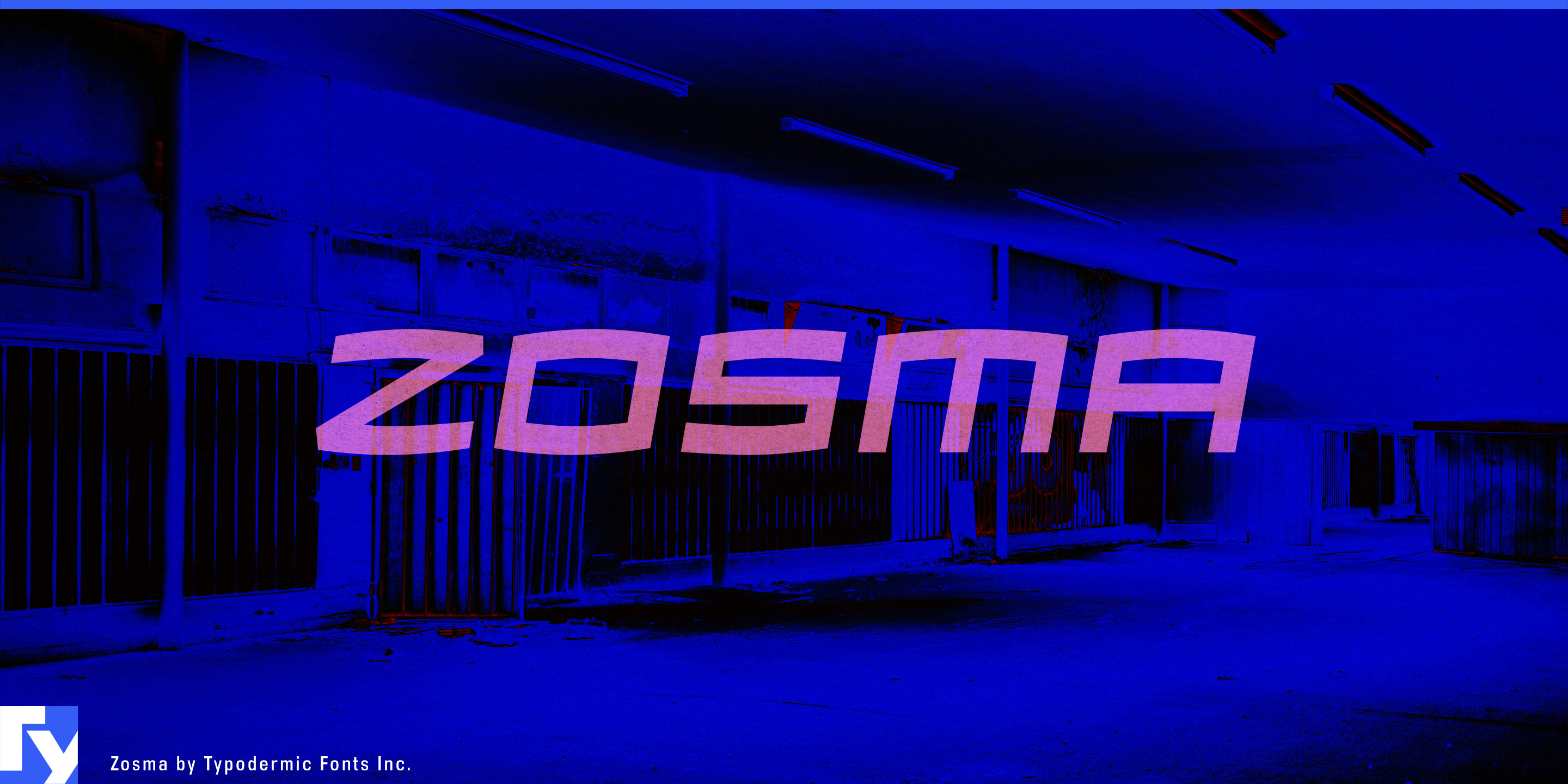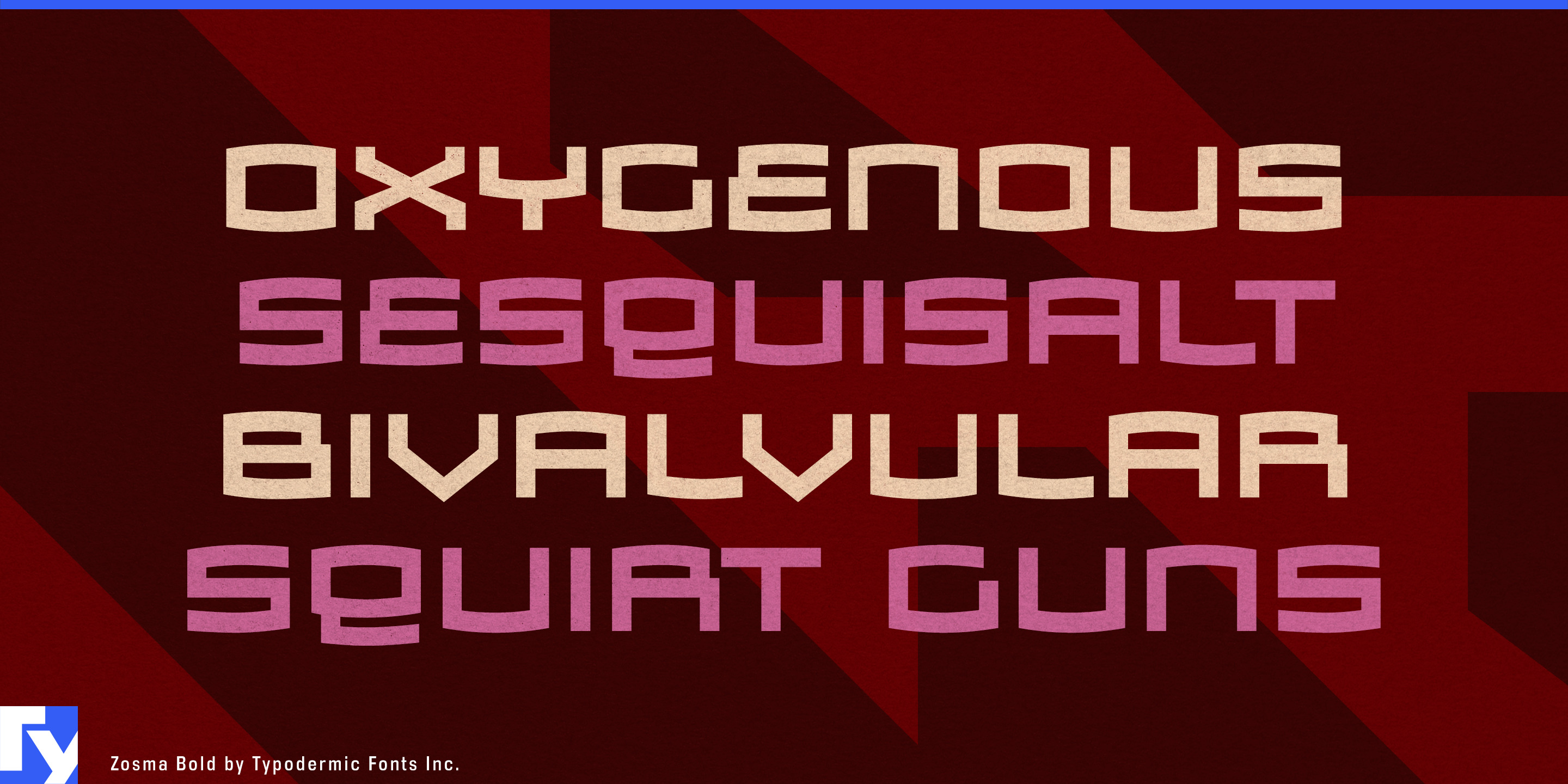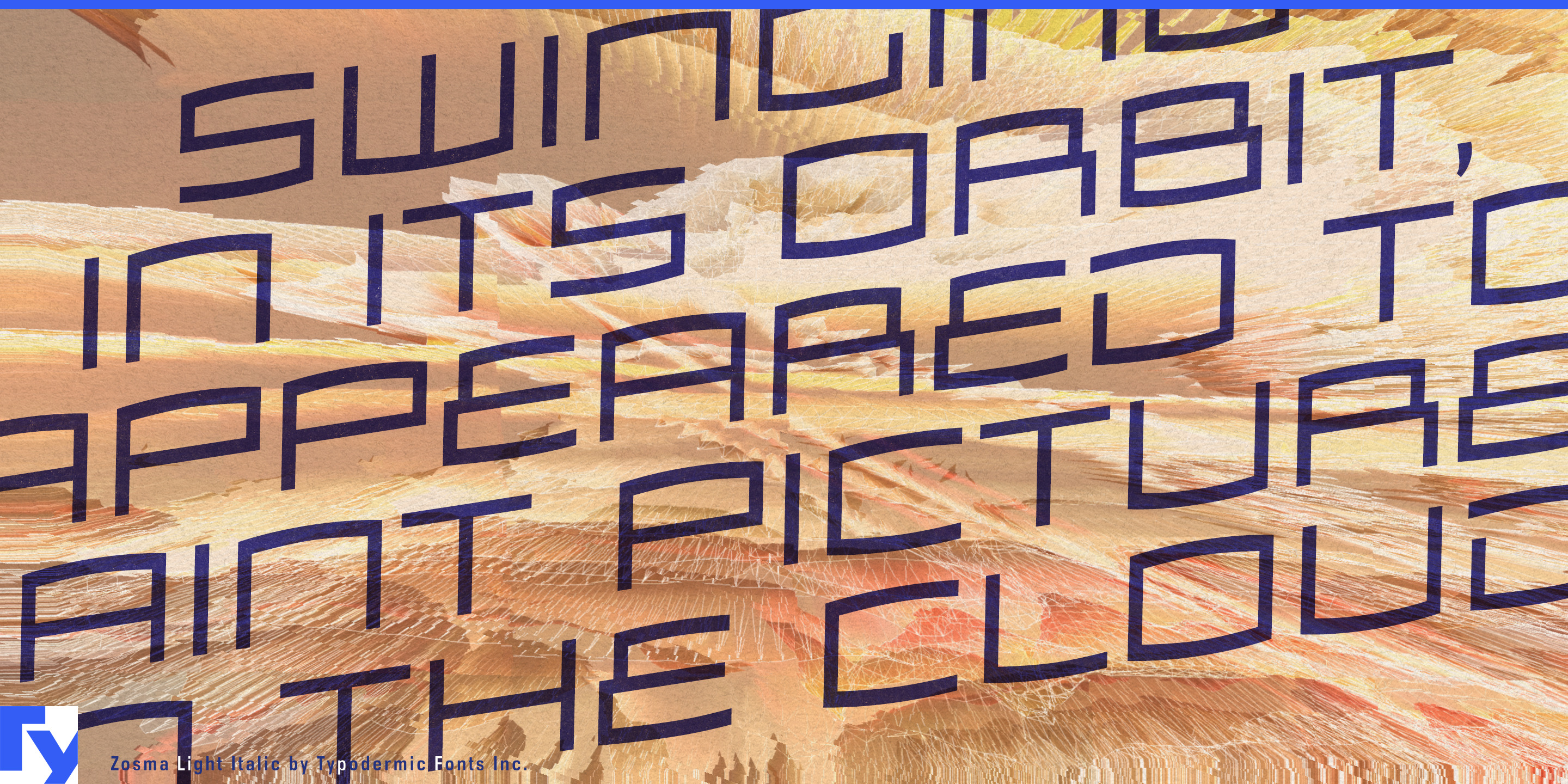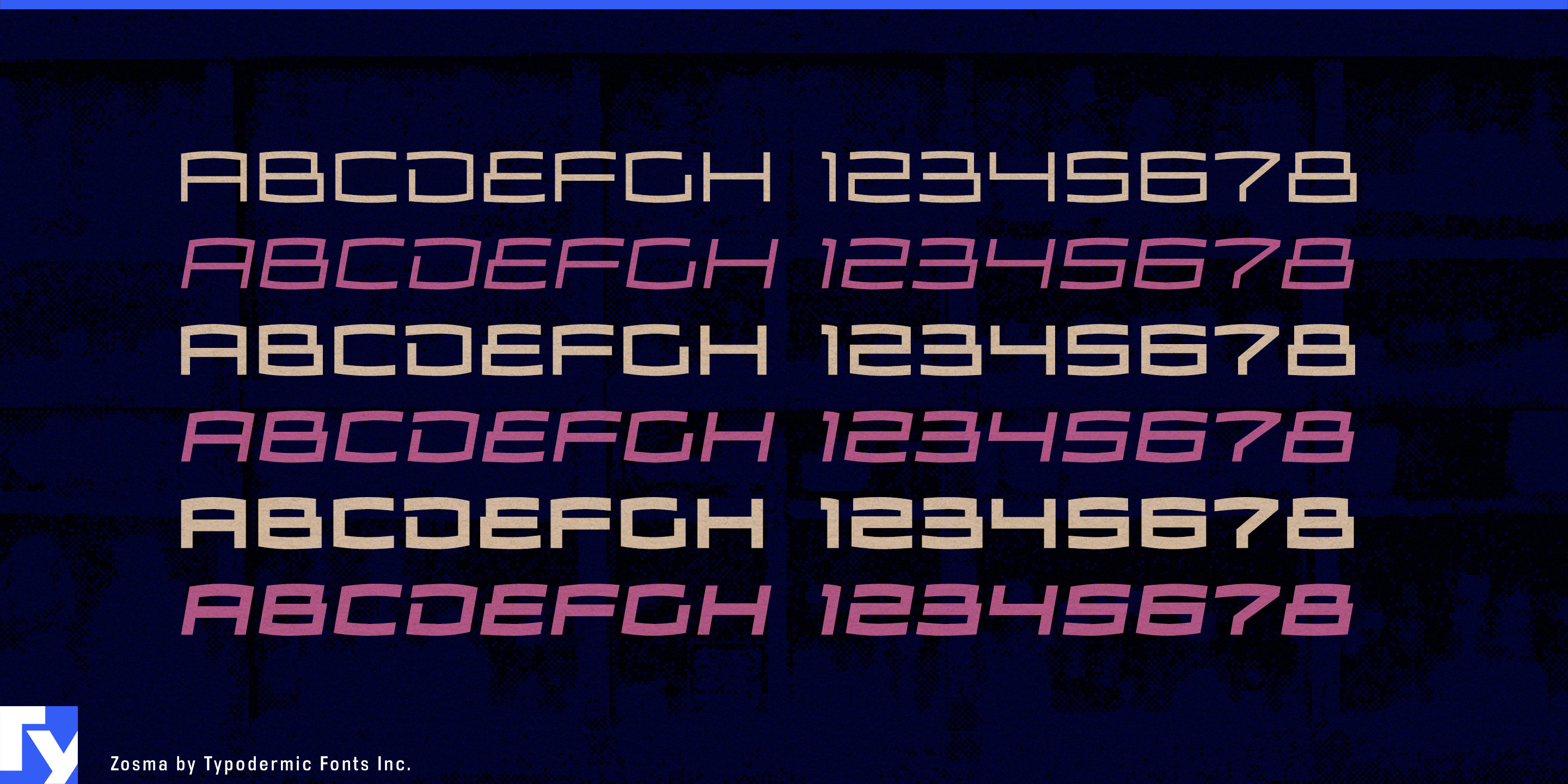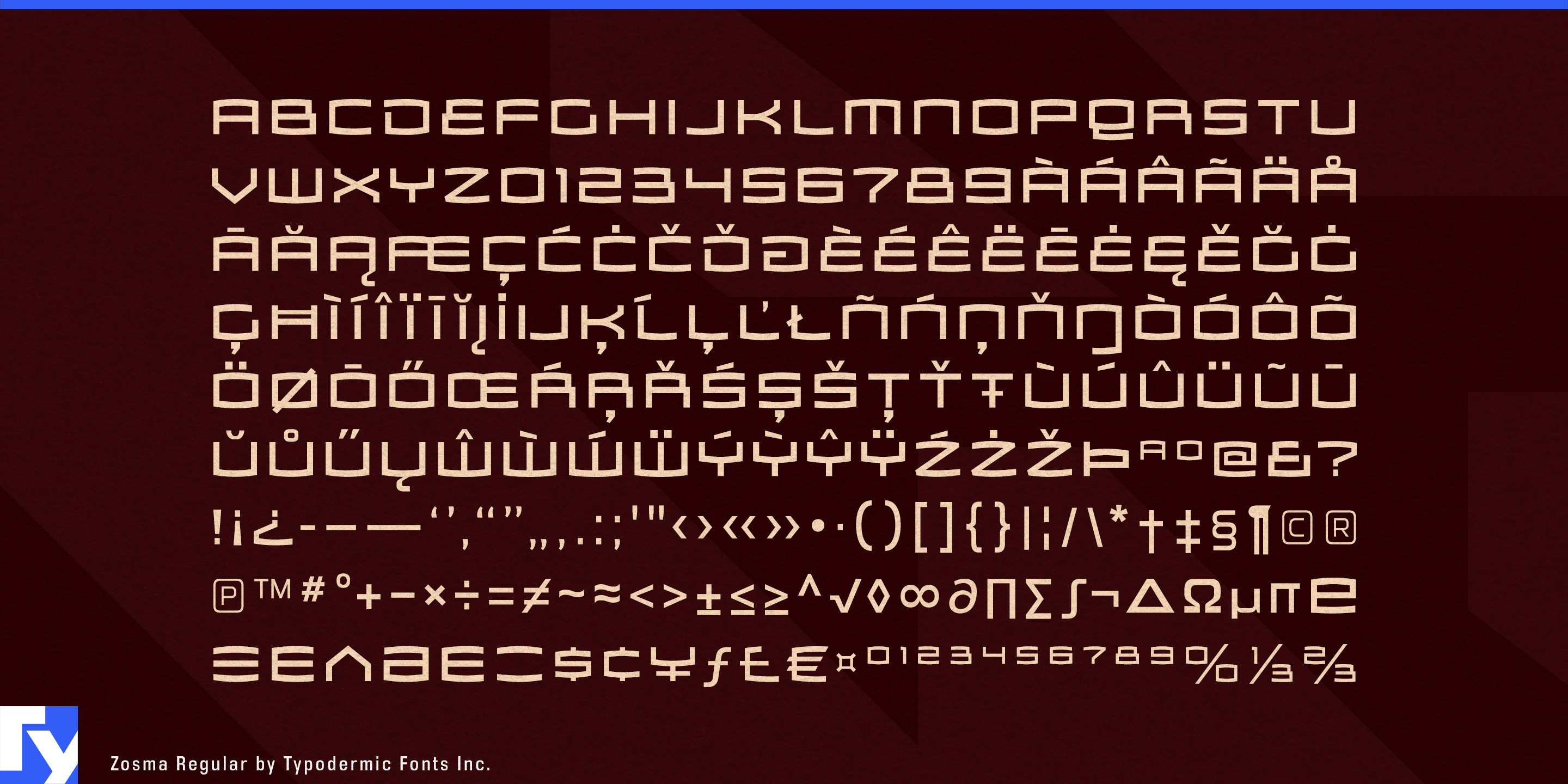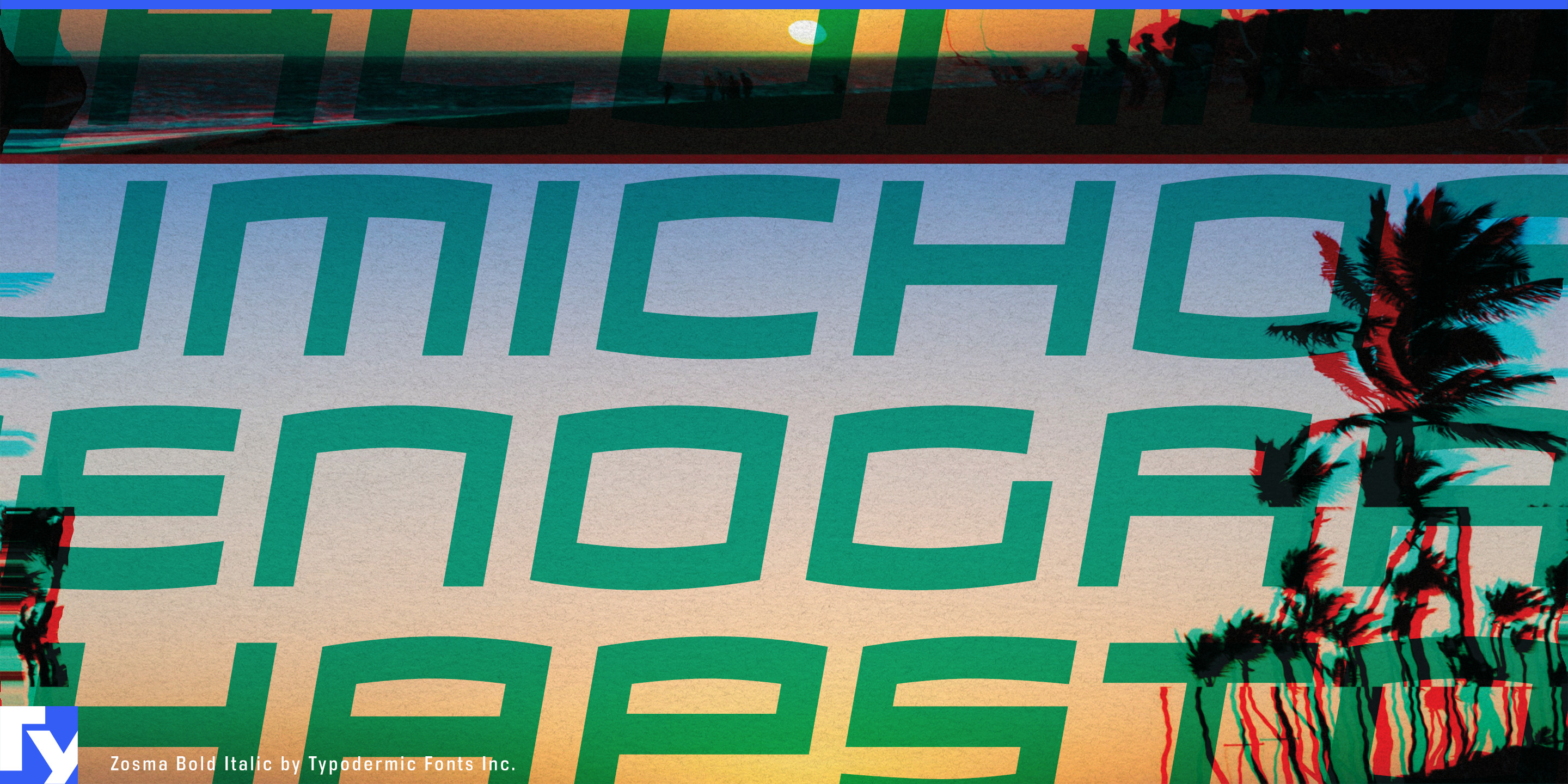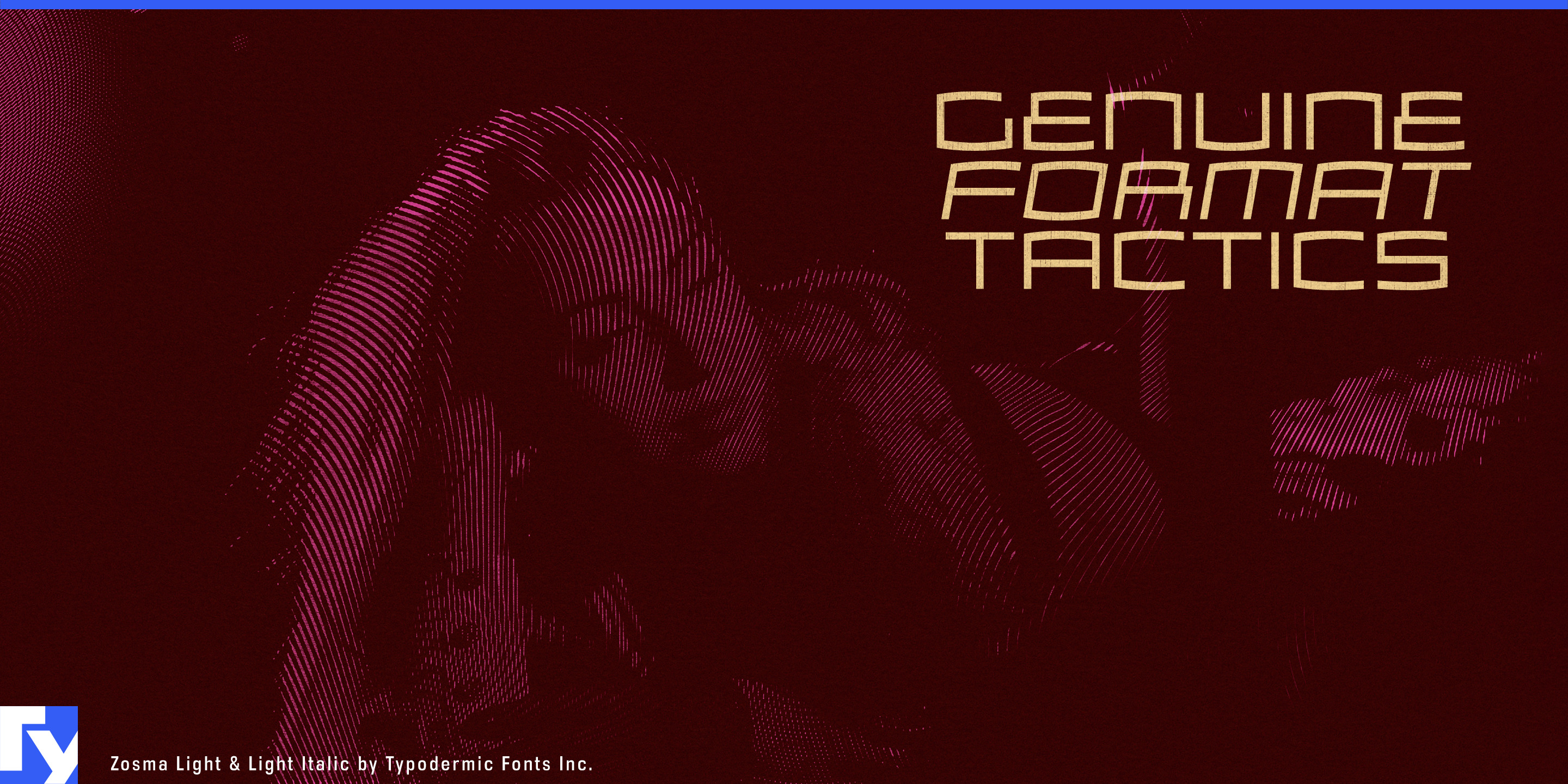
Zosma
Technology lettering often borrows from screens, grids or circuitry. Zosma comes from somewhere more physical. Its wide curves, flattened capsules and stretched geometry were shaped by the molded consumer-electronics forms of the mid-2000s, giving the letters the feel of hardware rather than software.
That makes gaming devices a natural home. Handheld gaming PCs, portable consoles, controller docks and compact gaming hardware can use Zosma for model names and product-family lettering that feels integrated with molded shells, rounded vents and sculpted housings.
VR and spatial-computing equipment extend the same idea. Headsets, motion controllers, tracking modules, haptic accessories and charging stations can use Zosma at the identity layer, leaving specifications, instructions and interface text to a quieter companion face. Racing wheels, pedal systems, flight controls and other simulation hardware offer a more performance-oriented branch, with matching italics adding direction to model variants and launch graphics.
Zosma’s mid-2000s character is now an asset rather than something to disguise. Retro-console exhibitions, gaming-hardware retrospectives, restoration projects and technology-history graphics can draw on typography that was actually shaped by that period’s consumer-electronics design rather than a later imitation of it.
Three weights with matching italics let Zosma move from lighter product-family graphics to heavier model names while retaining the same enclosure-like geometry. It works best where lettering becomes part of the object: across a handheld console, around a headset package, on simulation hardware or beside a restored piece of mid-2000s technology.